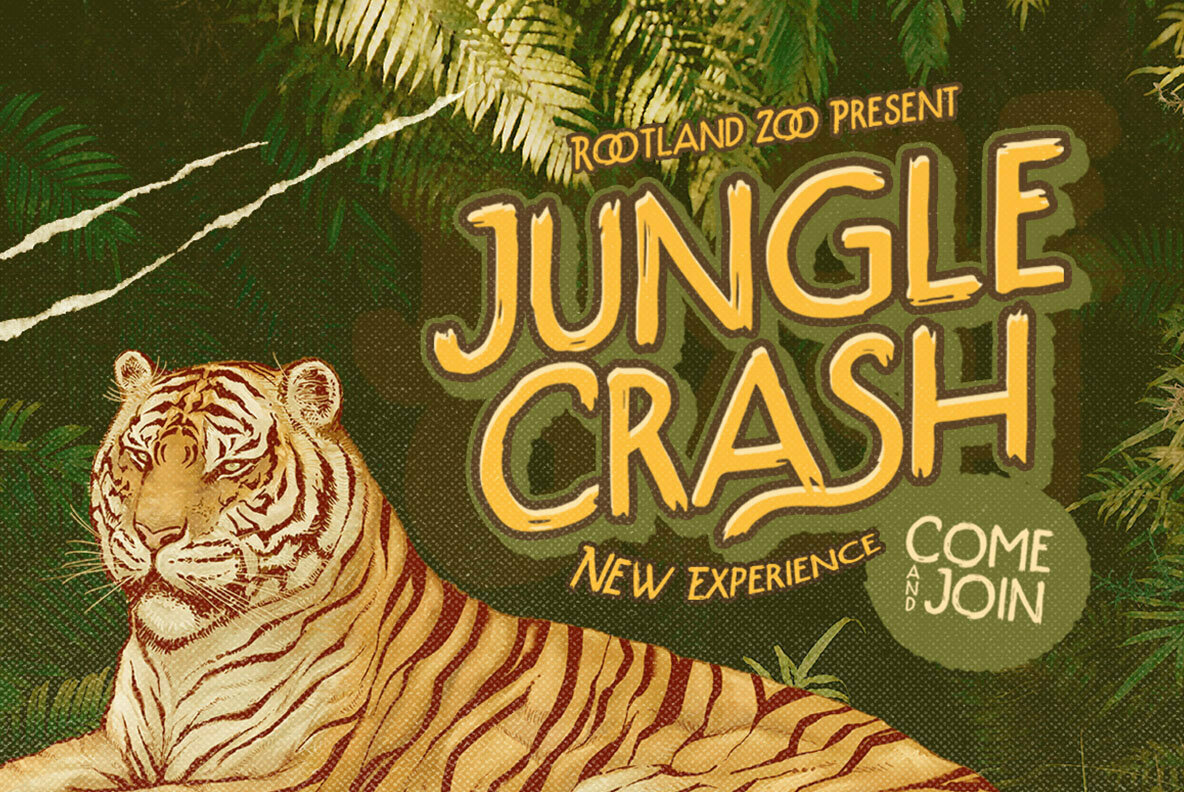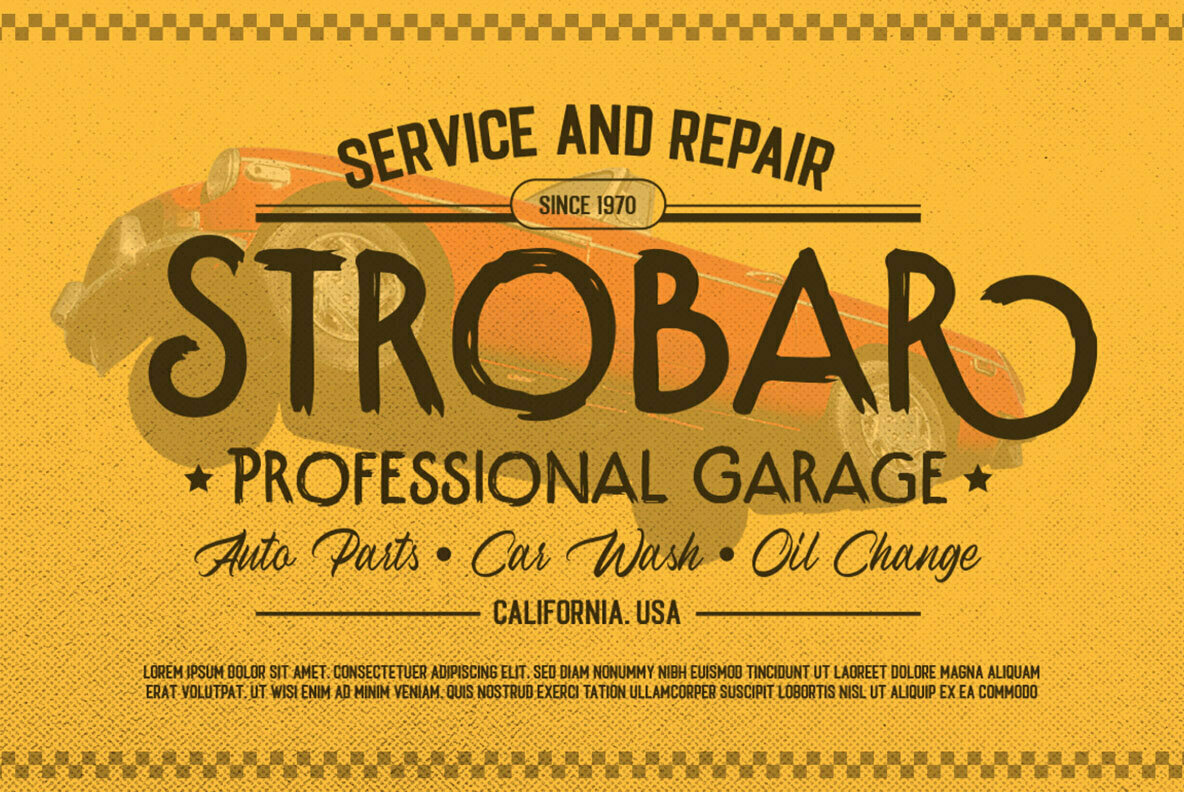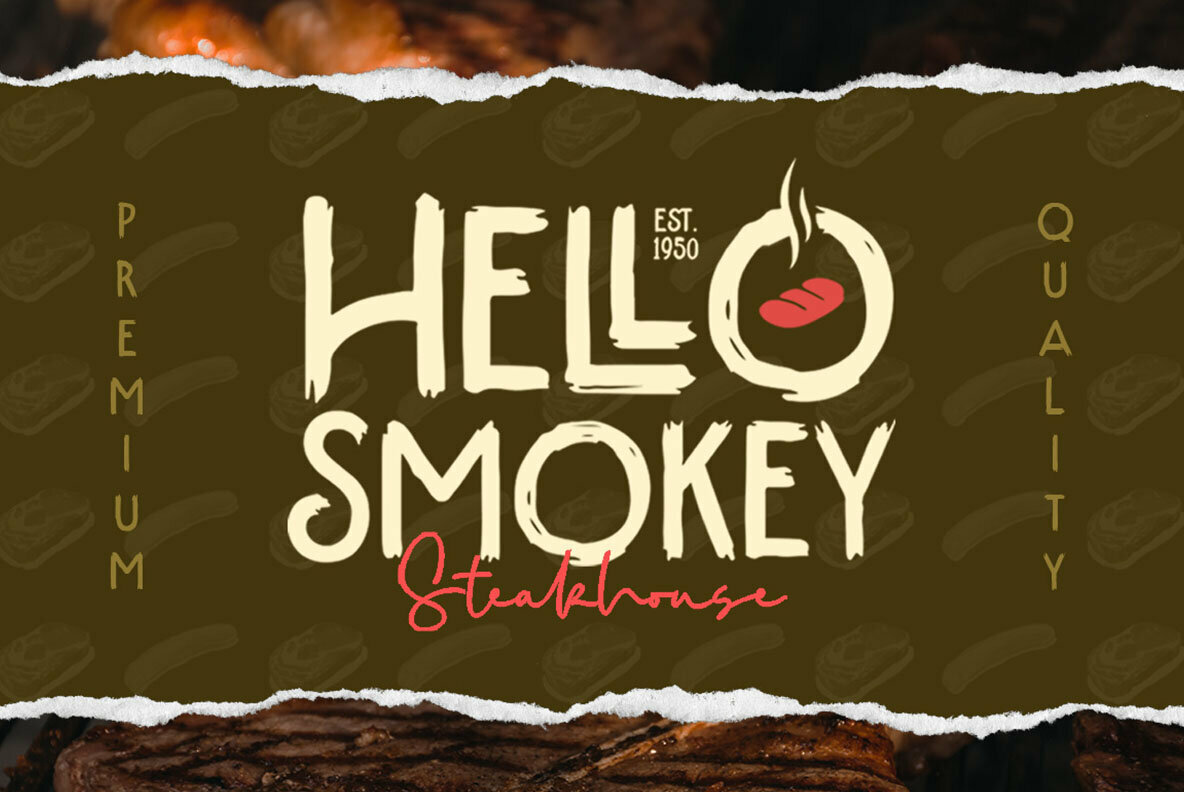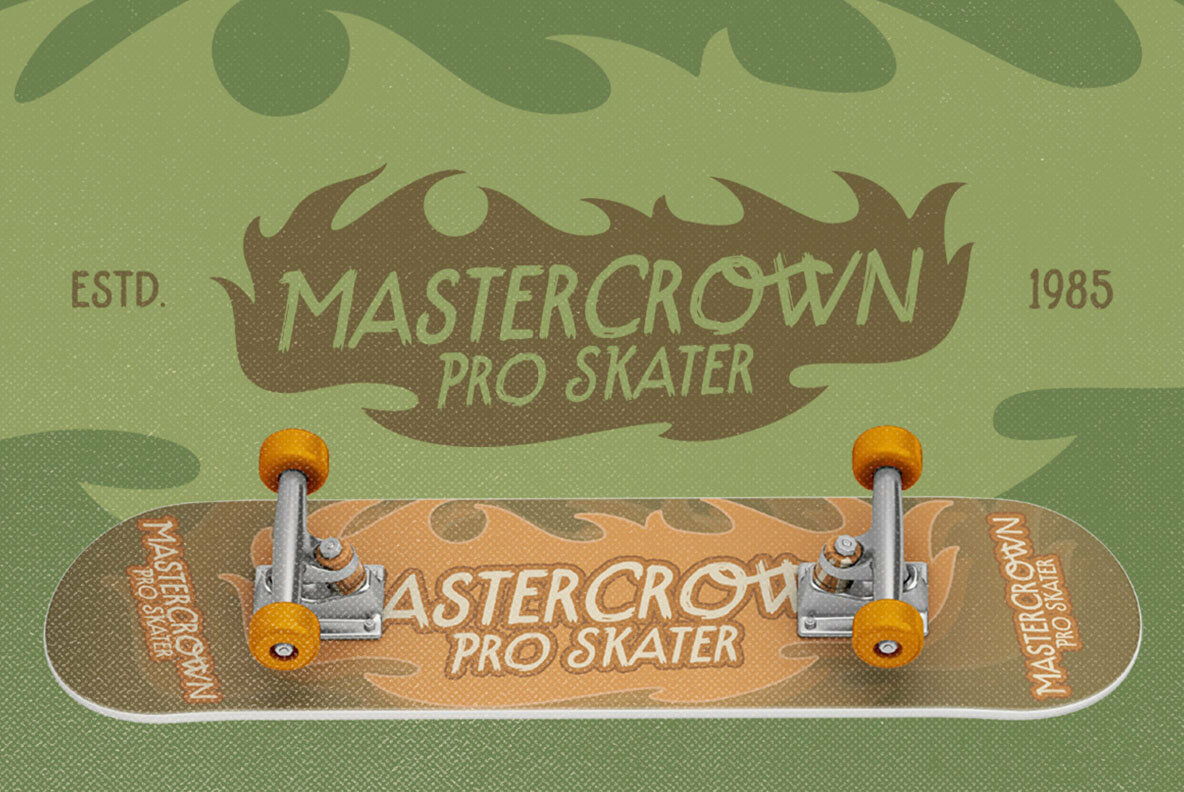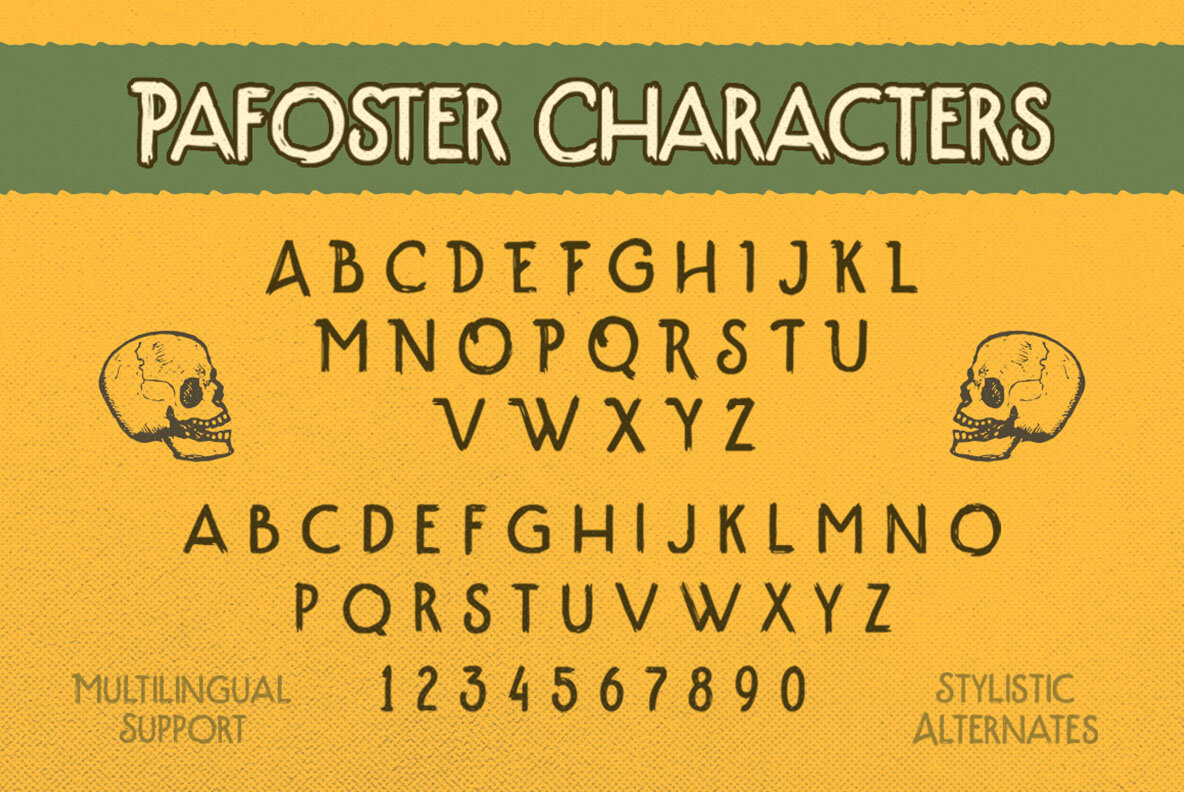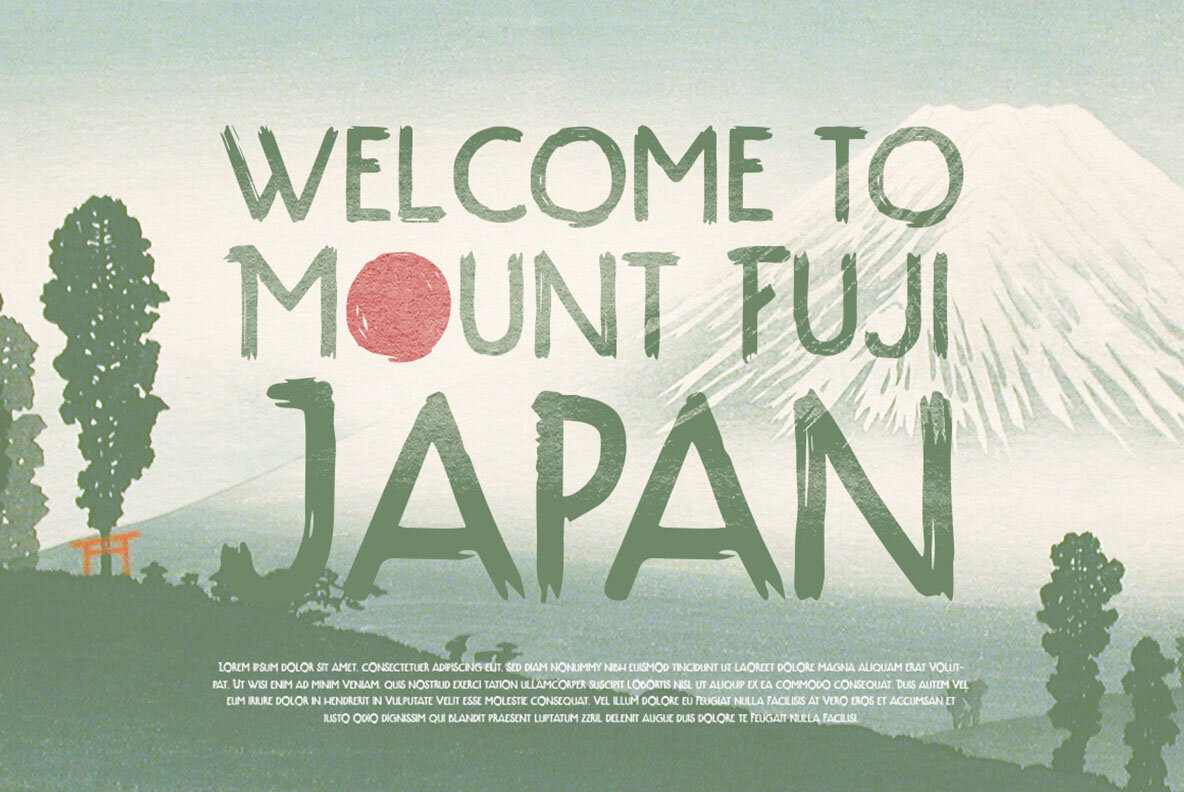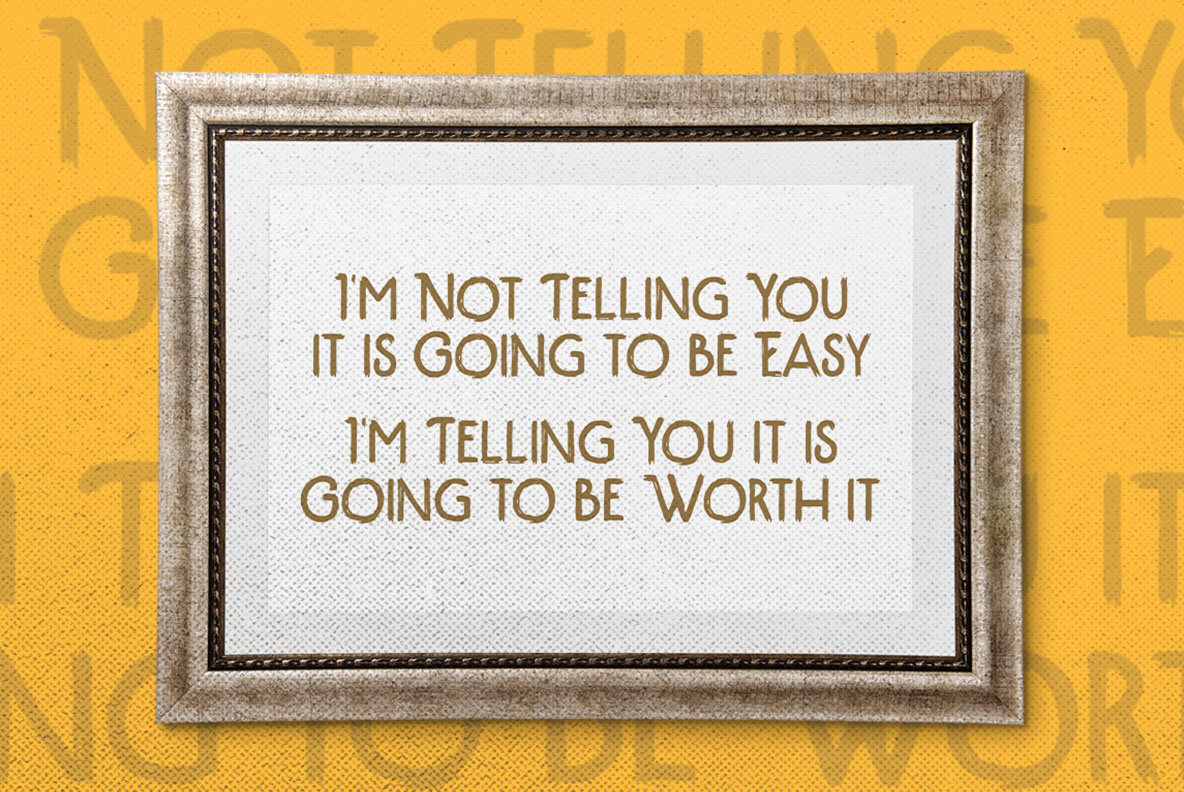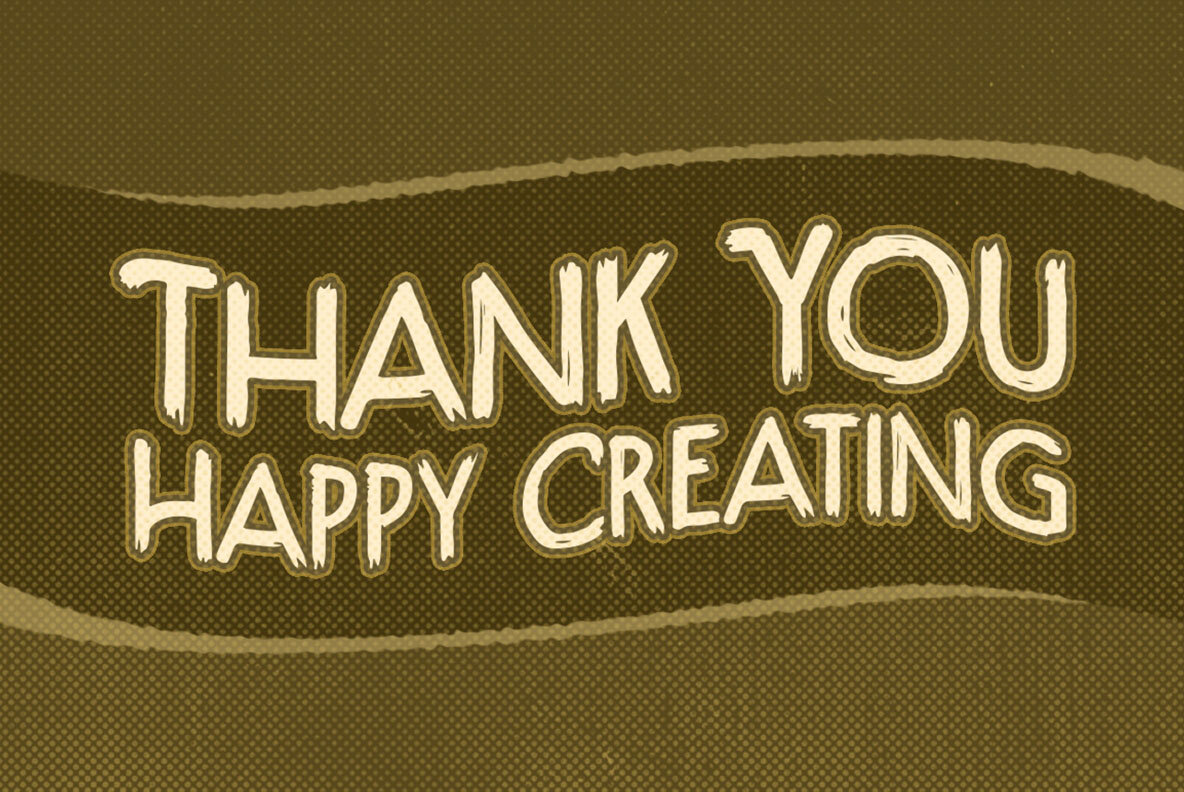
Pafoster Font
Pafoster, crafted by Letterhend Studio, embodies the charm of vintage and retro aesthetics. This display font, with its distinctive flair, is tailored for headlines, displays, and logotypes, making it an ideal choice for capturing attention in both digital and print media. Whether you're designing logos, invitations, or advertisements, Pafoster seamlessly adapts to a variety of formal and creative projects. Features:Pafoster: A Vintage Display Typeface